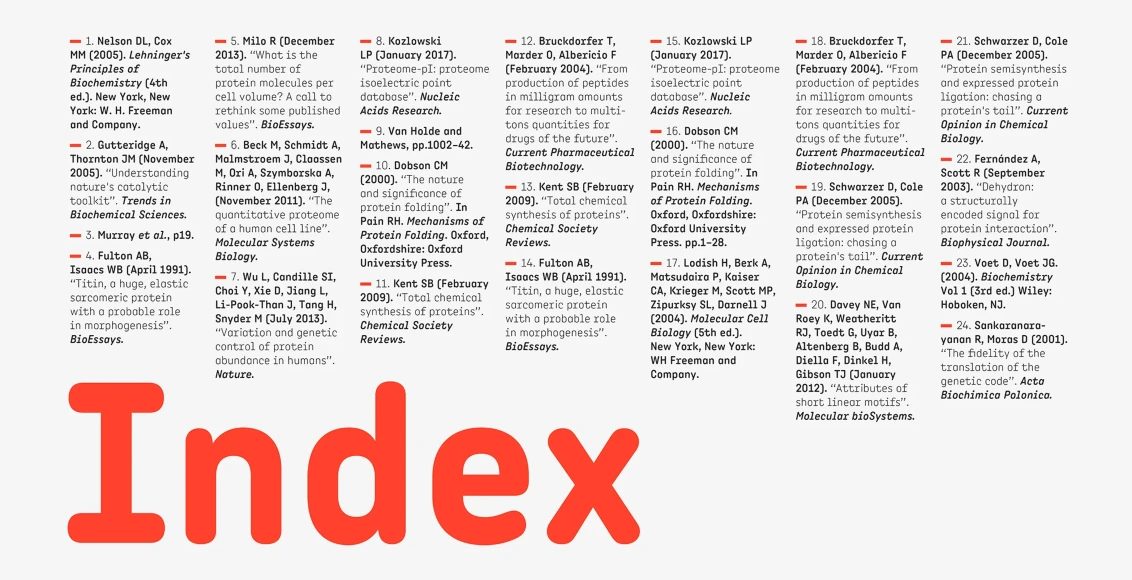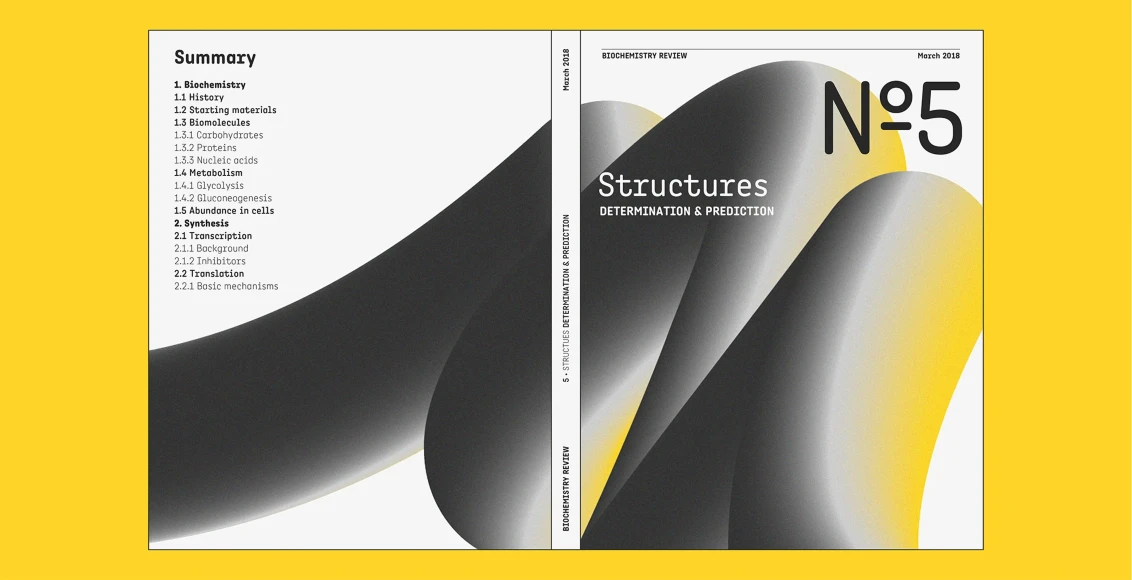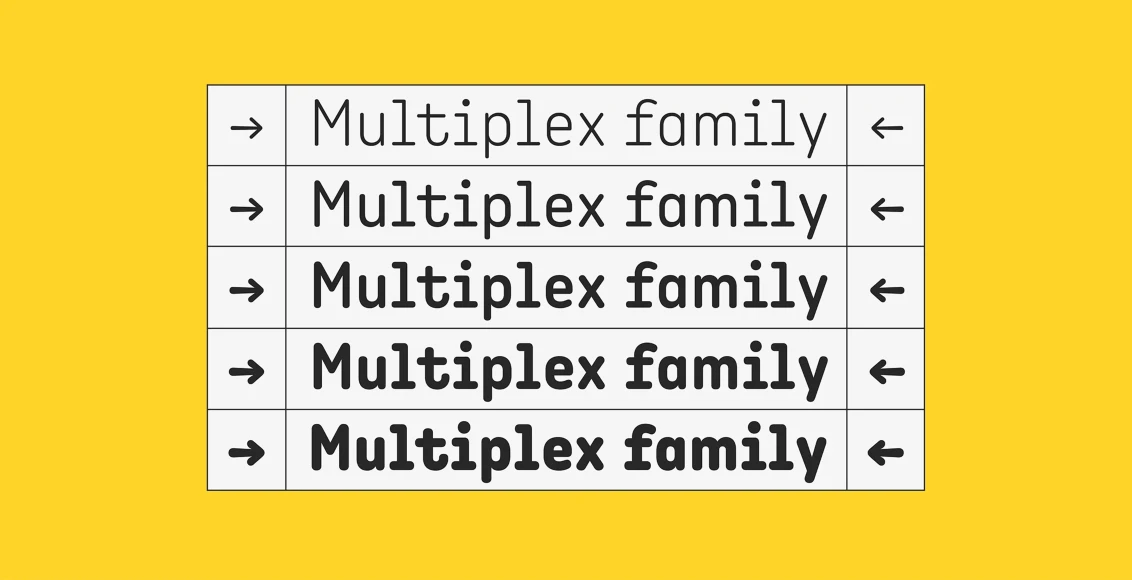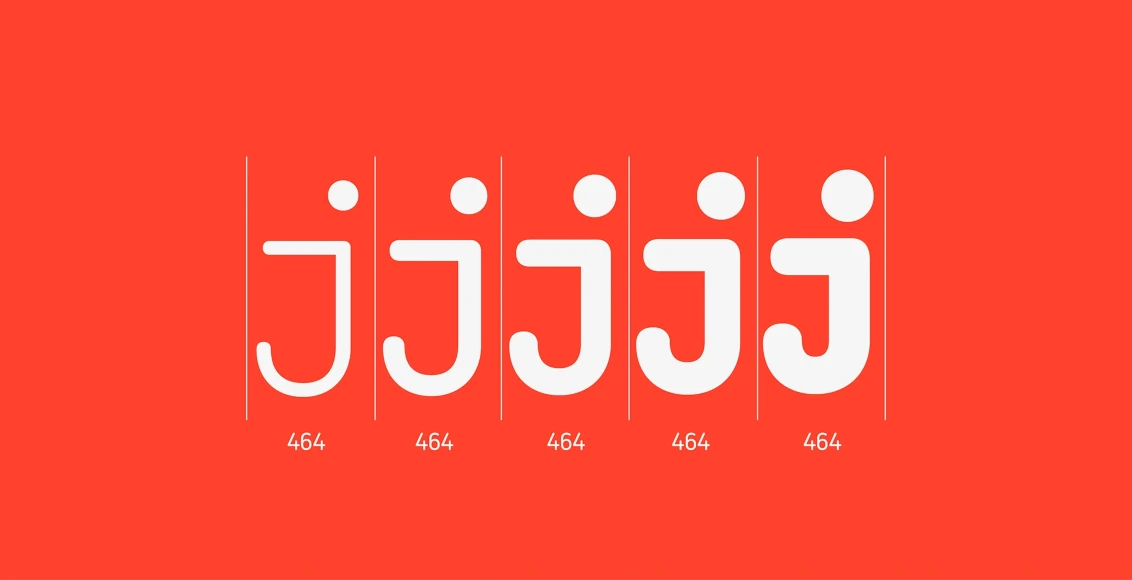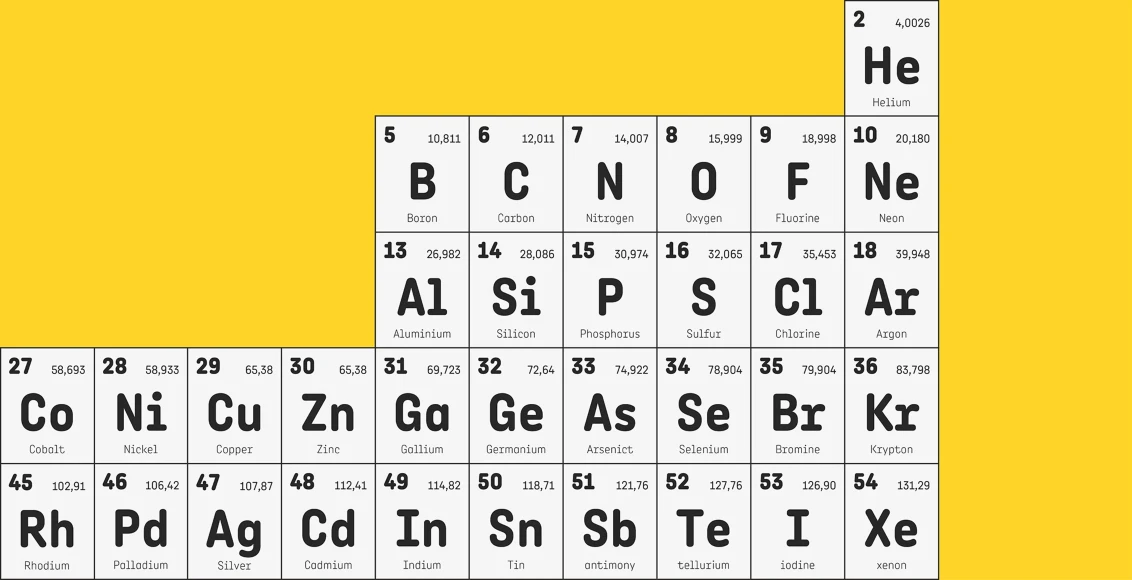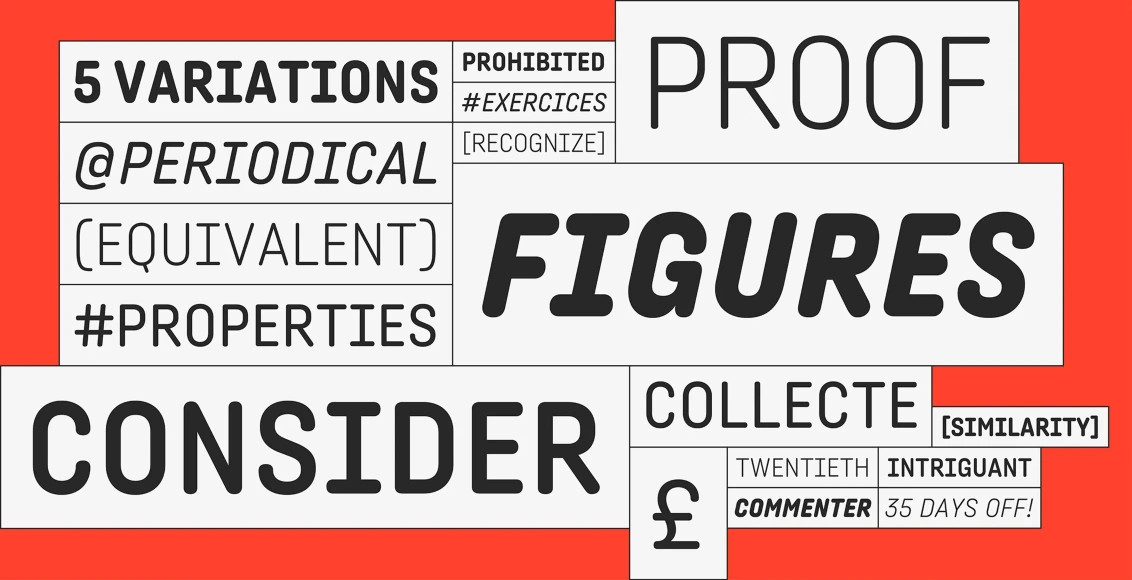
Angus
By Elliott Amblard
Angus is a rounded sans serif font family balancing softness and straightness with condensed proportions and a monospaced look. Multiplexed widths remain the same across styles, enabling typographic shifts without text reflow and giving each weight a distinct voice. With a cheerful look making it joyfully approachable, it suits entertainment, packaging, websites, and information graphics. Available in five weights from Light to Extra Bold and matching italics.